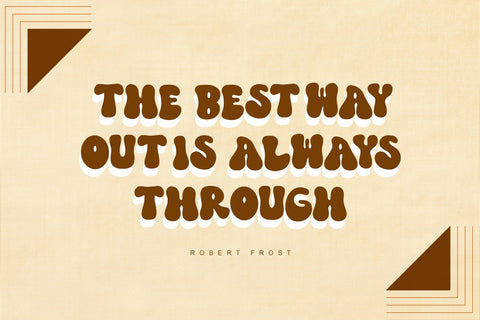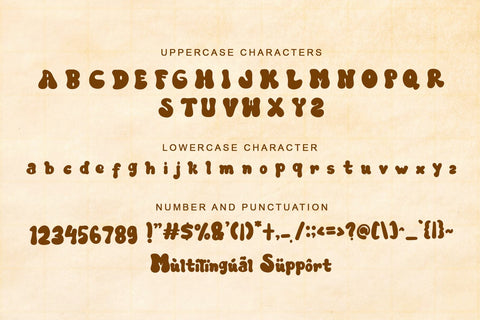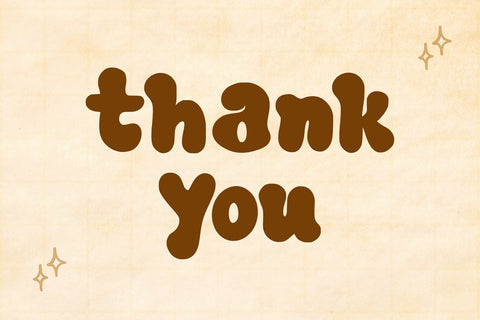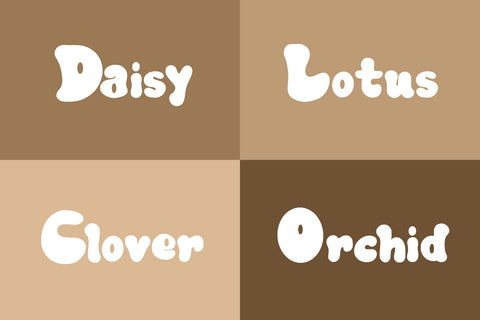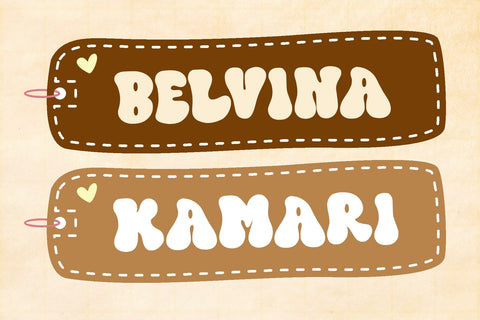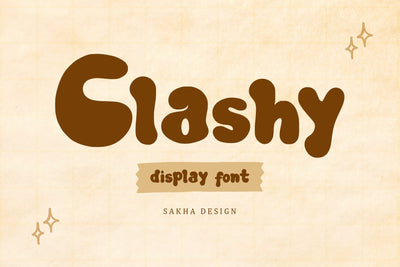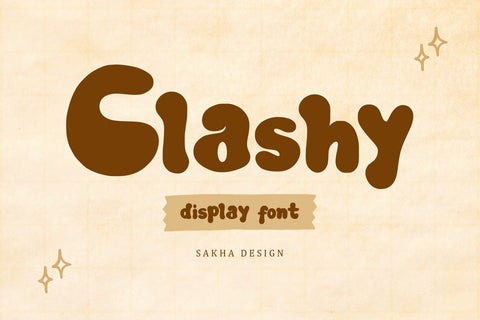
Clashy - Display Font
Clashy is a bold display font with edgy and modern shapes. Ideal for headlines, branding, and posters, its striking design and sharp details create a powerful visual statement for bold and contemporary projects.